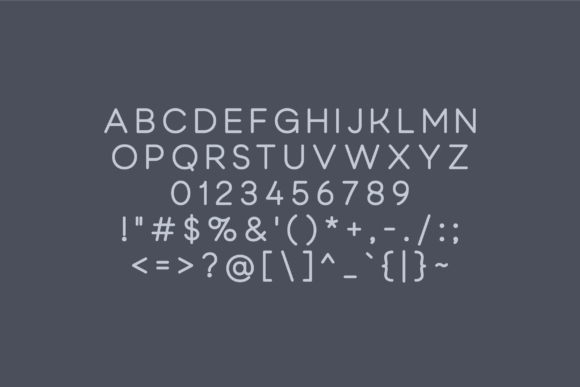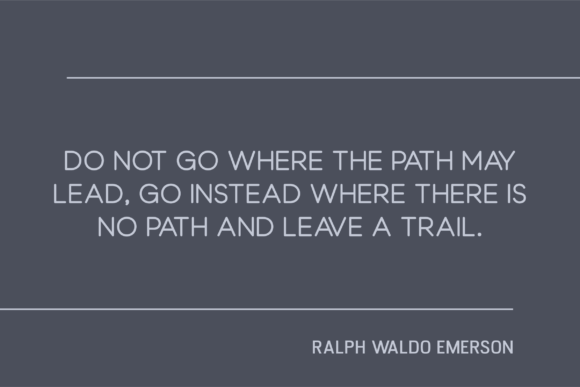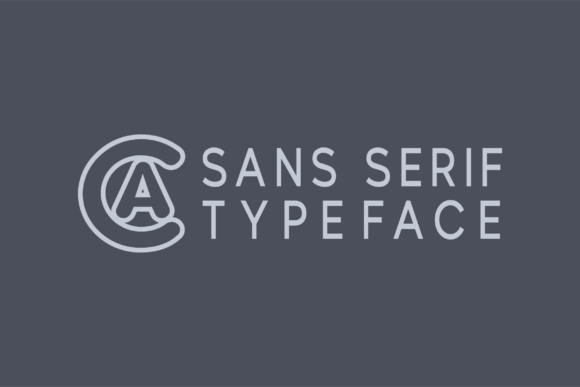
Introduction to Kyrios Font
Step into the world of Kyrios, a sleek, sophisticated sans serif typeface infused with modern elegance.
Kyrios flawlessly harmonizes uppercase alphabets, numbers 0-9, and a diverse palette of punctuation and symbols Packed with versatility, it effortlessly illuminates any context – be it logos, wedding invites, captivating quotes, sharp advertising, exquisite print material, or stylish magazine text.